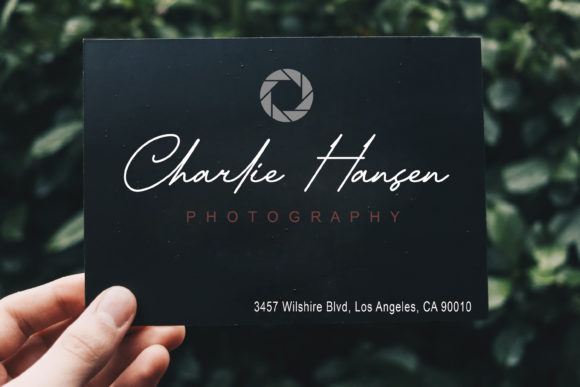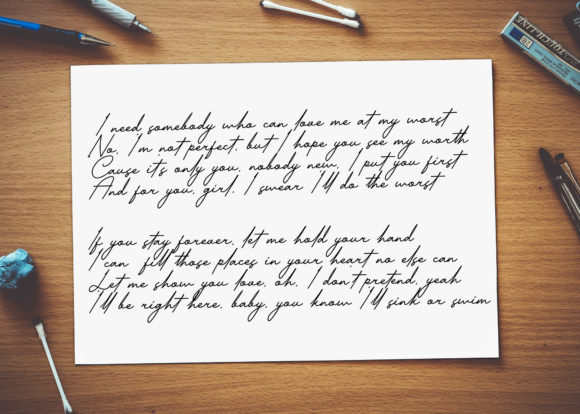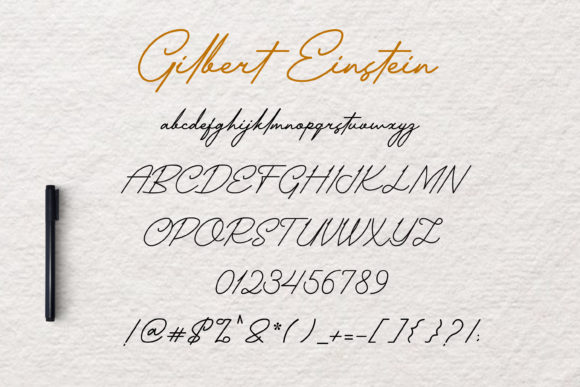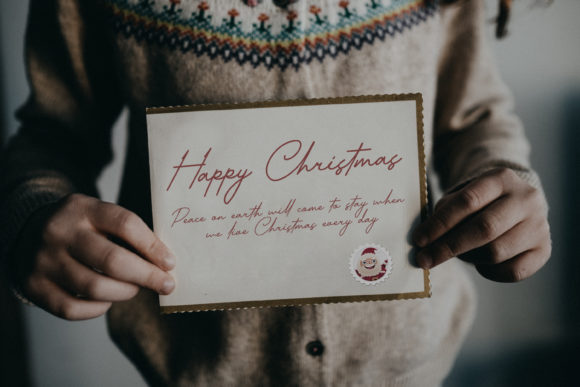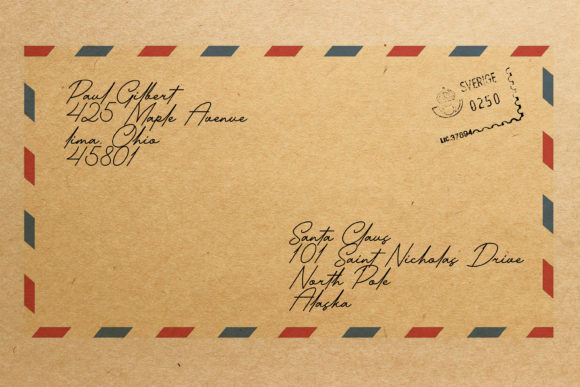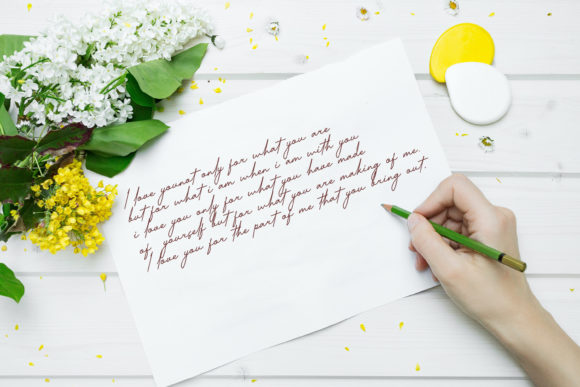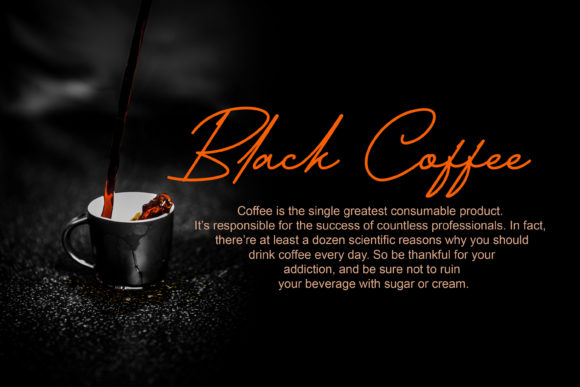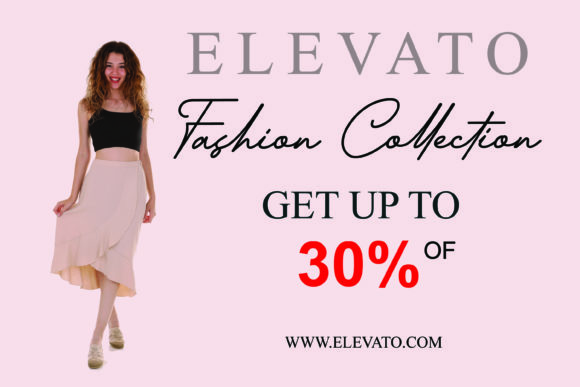
Gilbert Einstein Font
About Gilbert Einstein Font
Gilbert Einstein is a thin lettered and graceful script font. Fall for its ravishing style and use it to create gorgeous wedding invitations, beautiful stationary art, eye-catching social media posts, and much more!